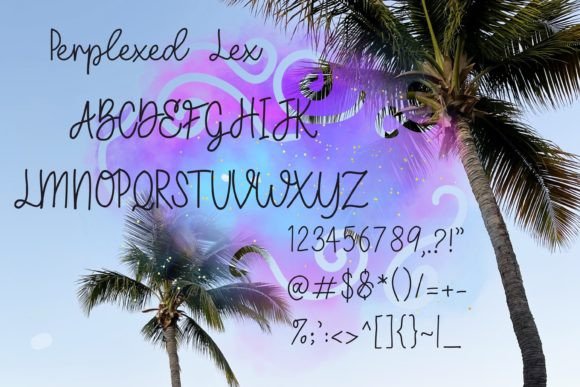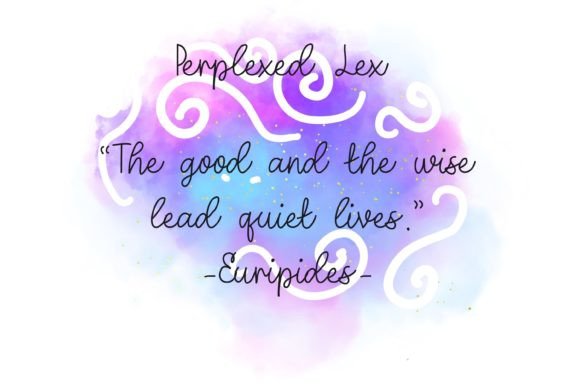
Introduction to Perplexed Lex Font
Have you ever stared at a blank canvas, trying to decide on the perfect font to bring your creative project to life? That’s a moment we’ve all been in – and it’s exactly when you need a reliable design resource to spark your imagination. That’s where Perplexed Lex Font comes in – a free download that’s about to become your go-to companion for any high-quality design.
This delightful handwritten font is a masterclass in whimsy and quirkiness, guaranteed to brighten up even the most mundane of designs. With its transparent background and effortless charm, Perplexed Lex Font is the perfect addition to any creative project – and we’re excited to share its secrets with you.
Whether you’re a seasoned designer or just starting out, Perplexed Lex Font is a valuable asset that will elevate your work and bring a smile to your face. So, let’s dive in and explore the wonderful world of Perplexed Lex Font – and discover why it’s about to become your new favorite design resource.
Key Features of Perplexed Lex Font
- Unique and Creative Design: Perplexed Lex Font offers a distinctive and artistic design perfect for creative projects, adding a touch of elegance to any visual content.
- High-Quality Typography: This font boasts high-quality typography, ensuring that your text stands out with crisp and clear readability.
- Transparent Background: Perplexed Lex Font comes with a transparent background, allowing for seamless integration with any design or image, giving you complete control over the composition.
- High-Resolution Images: Each font style is provided in high-resolution images, allowing for clear and detailed display on various devices and screen resolutions.
- Perfect for Digital and Print Media: With its versatility and high-quality design, Perplexed Lex Font is ideal for use in digital media, such as websites, social media, and advertising, as well as print media, including posters, flyers, and business cards.
Honest Review: Perplexed Lex Font
As a designer, I’m always on the lookout for high-quality design resources that can elevate my creative projects. Recently, I stumbled upon the Perplexed Lex Font, and I must say it’s a great addition to any design arsenal.
- High-quality design: The font is well-crafted, with clean lines and a professional look.
- Transparent background: This feature is a game-changer for designers who want to easily combine fonts with different backgrounds.
While the Perplexed Lex Font is an excellent resource, it’s not perfect. One limitation is the limited character set, which may not be suitable for lengthy text-based projects.
Overall, I’m impressed with the Perplexed Lex Font. Its high-quality design and transparent background make it a valuable addition to any design resource library. While it may not be suitable for all projects, it’s an excellent choice for creative projects that require a touch of elegance and sophistication.
Getting the Most Out of Perplexed Lex Font
For the best results, use Perplexed Lex Font in conjunction with a high-quality design background. Experiment with different font sizes and styles to achieve the desired visual effect.
Common Use Cases for Perplexed Lex Font
Perplexed Lex Font is ideal for a variety of creative projects, including social media graphics, blog posts, and marketing materials. Its unique design makes it perfect for adding a touch of sophistication to your designs.